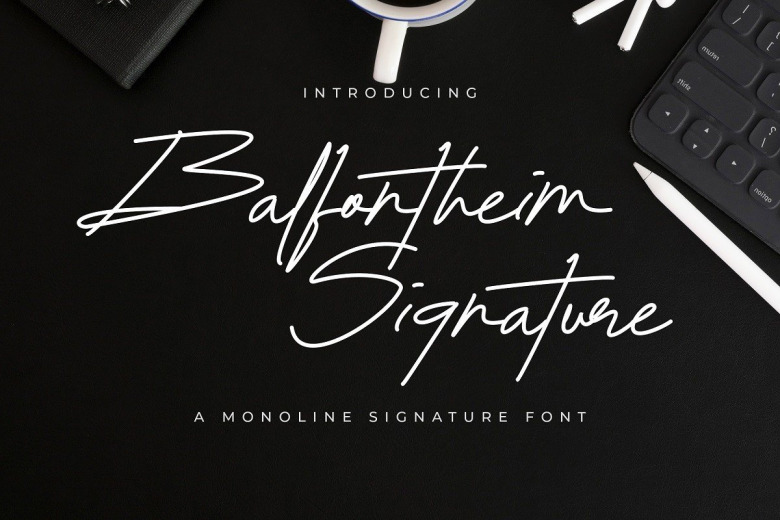
Balfontheim Font
Balfontheim Monoline Signature Font is a elegant and stunning script signature font. Balfontheim also includes full set of uppercase and lowercase letters, multilingual symbols, numerals, punctuation and ligatures. It is the best choice for creating logos, branding and quotes.
Every letter has a unique and beautiful touch, which will make your design come alive! This font is free for PERSONAL USE. Link to purchase full version and commercial license : HERE